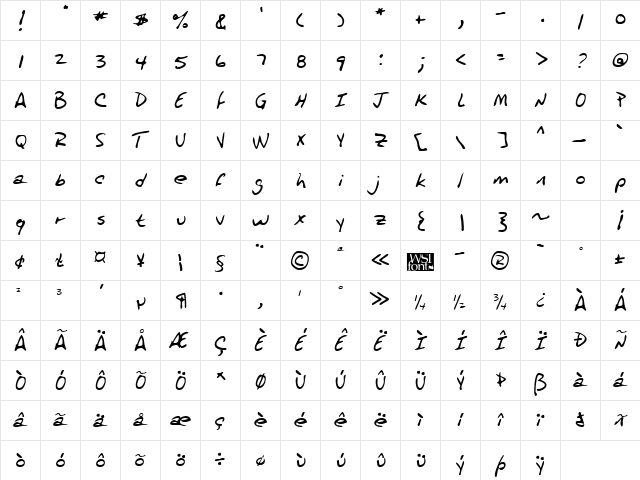
PrincesHand Regular Font Preview
PrincesHand Regular
PrincesHand Regular Font Details
Design Context for PrincesHand Typeface
PrincesHand flows with the natural rhythm of handwritten lettering, making it ideal for designs that call for warmth and personal expression.